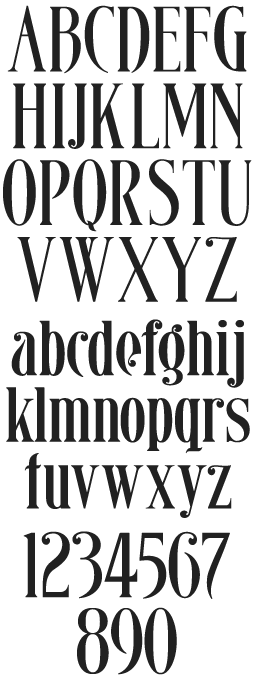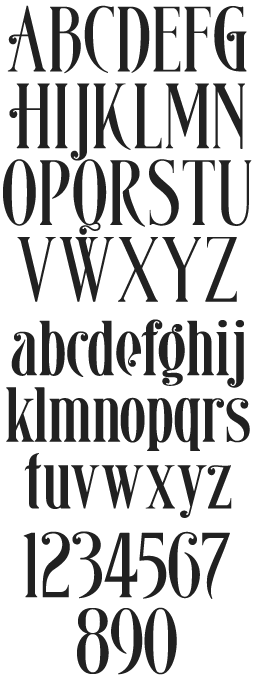
LHF Quaker Leave it John Studden to combine old world styling with clean modern lines. You've never seen anything quite like Quaker. Includes two fonts: LHF Quaker Regular & LHF Quaker Alternates.